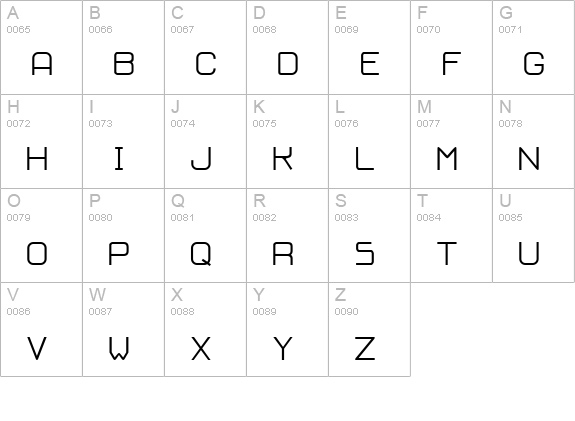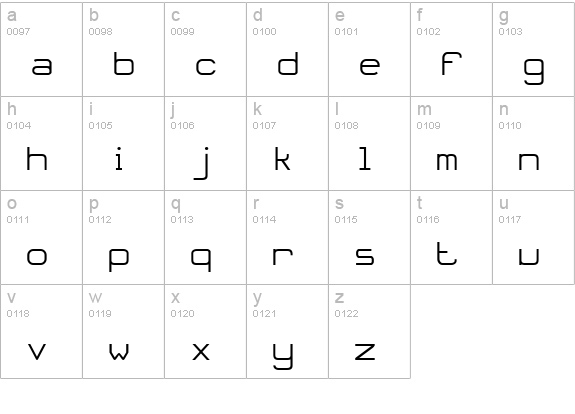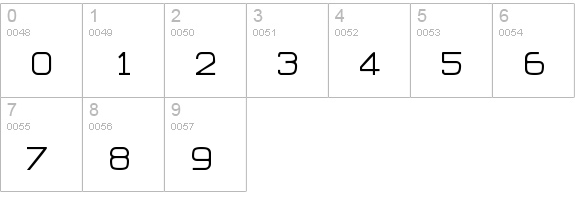
Oloron Tryout Font Details
The Oloron Tryout font is a stunning and versatile typeface that exudes elegance and sophistication. Its sleek lines and modern design make it perfect for a wide range of projects, from branding to editorial design. The font features a unique blend of sharp edges and soft curves, creating a harmonious balance that is both eye-catching and easy to read. What sets Oloron Tryout apart is not only its impeccable design but also the fact that it is available for free download at FontsMarket.com. This means that you can elevate your projects with this beautiful font without having to spend a penny. Whether you are a designer looking to add a touch of class to your work or a business owner in need of a distinctive font for your branding, Oloron Tryout is the perfect choice. Download it today and see the difference it can make in your designs.